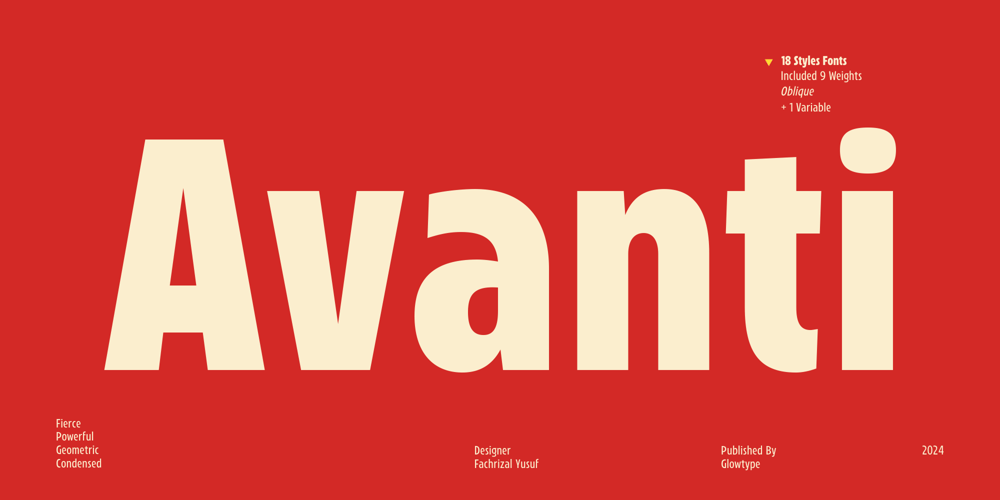
Avanti Variable Font Family was designed by Fachrizal Yusuf and published by Glowtype. Avanti Variable contains 1 styles and family package options. This is A Variable font from previous family Avanti.Inspired by the typography on various subways around the world. Combining a modern, bold and bold impression. Introducing Avanti a modern condensed sans, an anti-mainstream condensed font. Avanti is Italian for forward, created to give a masculine and bold impression to all aspects of your branding.Crafted with care, this font is not only visually stunning, but also incredibly easy to use. It’s compatible with all major design software, making it the perfect addition to any designer’s toolkit.Whether you’re creating marketing materials, designing a website, logo design, packaging, ads, clothing, merch, etc, Avanti is the perfect choice.Cheers & enjoy! 😉